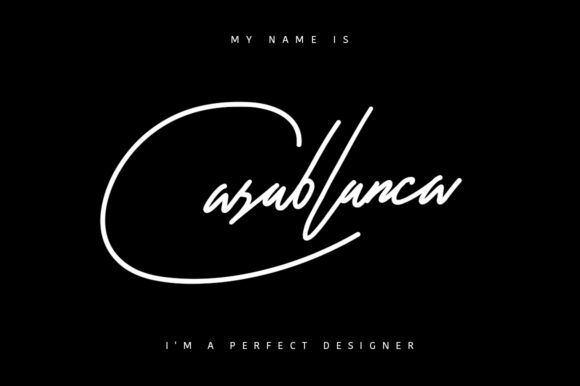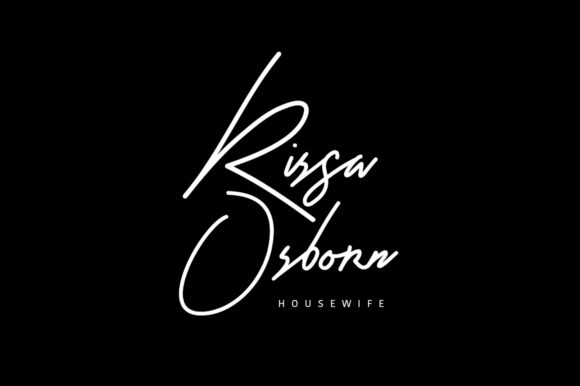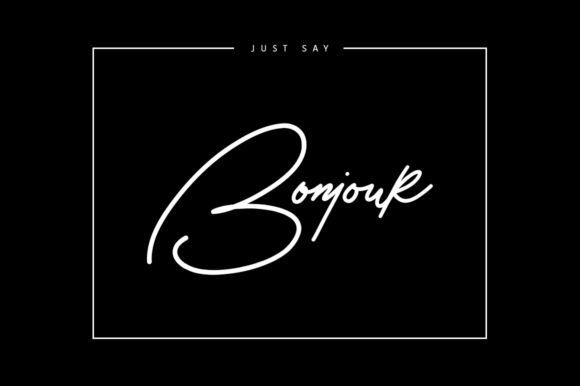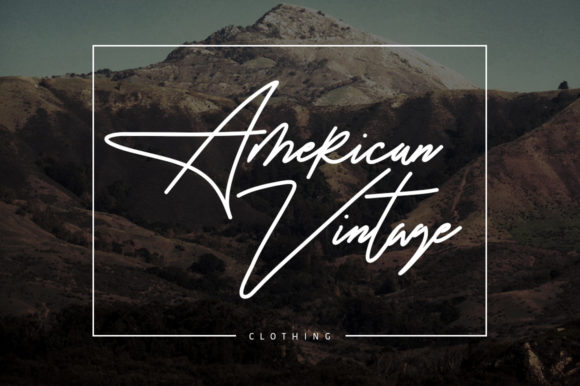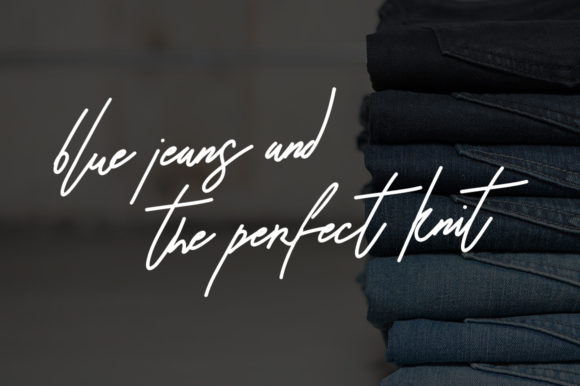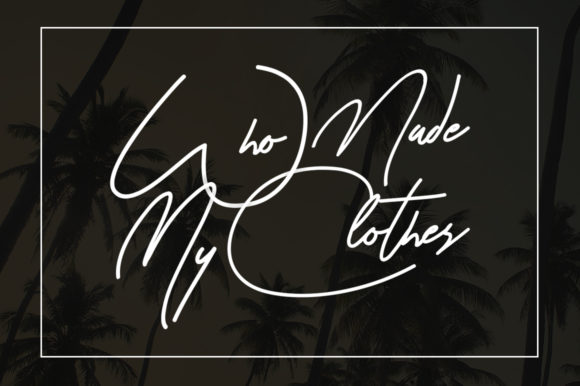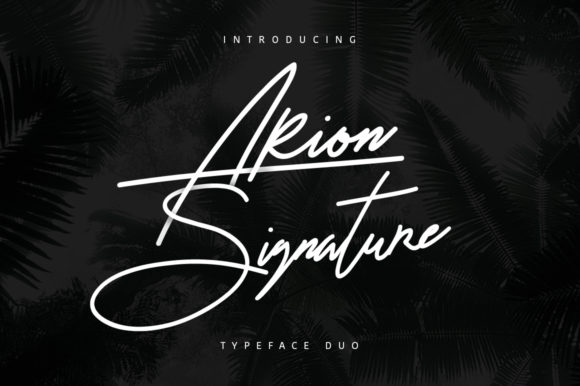
The Magic of Arion Signature Font: Elevate Your Designs with Elegance
I’ll never forget the time I was working on a wedding invitation project, and my client asked for a font that was ” elegant, yet effortless.” I scoured the internet, tried out dozens of fonts, but nothing seemed quite right. That was until I stumbled upon Arion Signature Font. ✨ It was love at first sight! The thin, elegant handwritten strokes captured the essence of what I was looking for, and I knew I had found the perfect fit.
An Honest Review of Arion Signature Font
- ✨ Incredibly versatile style that suits various design projects
- ✅ Thin and elegant handwritten strokes
- 💕 Perfect for creating gorgeous wedding invitations, beautiful stationery art, and eye-catching social media posts
- 🎨 Great for designers, crafters, and creative hobbyists
While Arion Signature Font is an amazing addition to any design project, there are a few things to keep in mind: 🤔
- ⚠️ Limited use of bold or heavy strokes, which might not be suitable for all design projects
- ⚠️ May not be the best choice for body text or long paragraphs, as it can be quite thin
- Experiment with OpenType features, such as glyphs and stylistic alternates, to add more personality to your design
The Story Behind Arion Signature Font
Arion Signature Font was created with the intention of capturing the essence of elegant, handwritten script. The designer wanted to create a font that was both versatile and beautiful, suitable for a wide range of design projects. 💫
Q: What type of designs is Arion Signature Font best suited for?
A: Arion Signature Font is perfect for creating gorgeous wedding invitations, beautiful stationery art, eye-catching social media posts, and more.
Q: Is Arion Signature Font available in different languages?
A: Yes, Arion Signature Font supports multiple languages. However, the availability of certain characters and glyphs may vary.